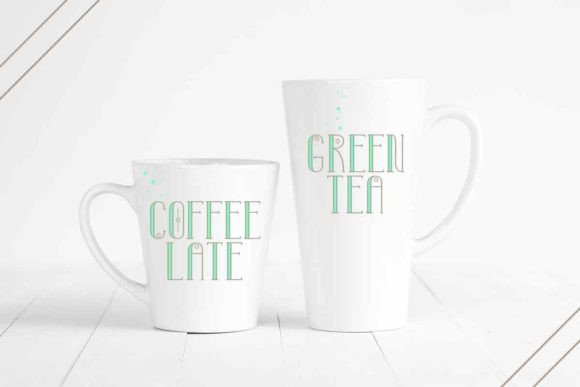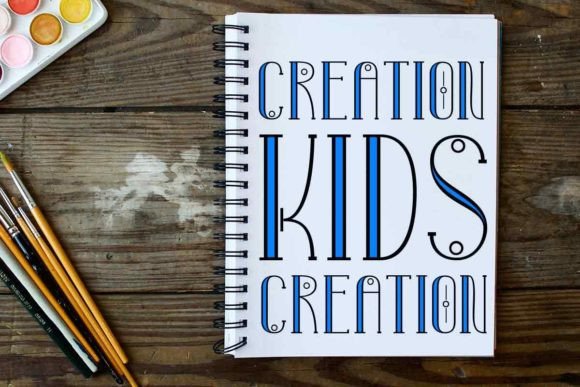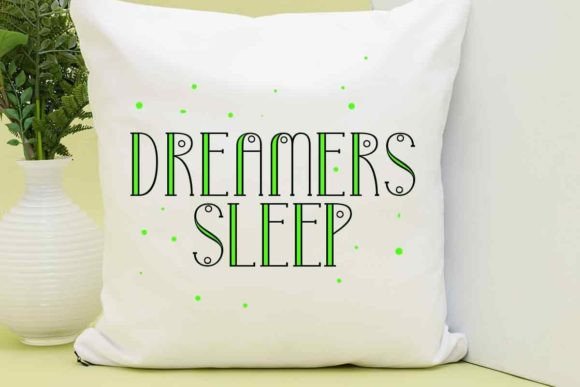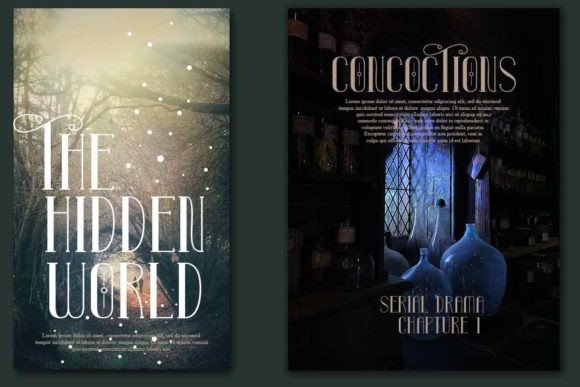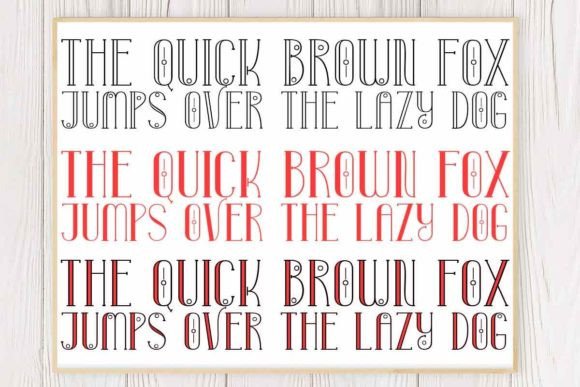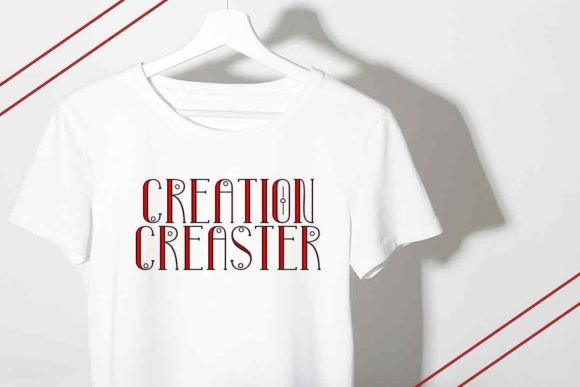
Introducing Creaster Silly Font: The Ultimate Display Font for Creative Projects
Are you tired of using the same old fonts for your creative projects? Look no further! Creaster Silly Font is here to add a touch of quirkiness and playfulness to your designs. This display-themed serif font is perfect for designers and crafters who want to make their work stand out from the crowd.
What Makes Creaster Silly Font So Special?
Creaster Silly Font is a modern serif font with a twist. Its quirky and playful shapes are designed to add a touch of whimsy to your designs. The font comes with added decorations, making it even more interesting and unique. Whether you’re working on a greeting card, invitation, or clothing print, Creaster Silly Font is the perfect choice.
Key Features of Creaster Silly Font
- Display-themed serif font: Creaster Silly Font is designed to make a statement. Its serif style gives it a classic touch, while its quirky shapes keep it modern and fresh.
- Quirky and playful shapes: The font’s unique shapes are designed to add a touch of playfulness to your designs. Perfect for projects that require a bit of whimsy.
- Modern style: Creaster Silly Font is designed with modern design trends in mind. Its clean lines and simple shapes make it perfect for contemporary projects.
- Added decorations: The font comes with added decorations, making it even more interesting and unique. Use them to add an extra touch to your designs.
Use Creaster Silly Font for a Variety of Projects
Creaster Silly Font is versatile and can be used for a wide range of projects. Here are some ideas to get you started:
- Greeting cards: Add a touch of whimsy to your greeting cards with Creaster Silly Font. Perfect for birthdays, weddings, and other celebrations.
- Invitations: Make your invitations stand out with Creaster Silly Font. Its playful shapes and modern style are sure to impress.
- Clothing prints: Use Creaster Silly Font to create unique and eye-catching clothing prints. Perfect for t-shirts, hoodies, and other apparel.
- Stationery: Add a touch of personality to your stationery with Creaster Silly Font. Use it for letterheads, notebooks, and other paper products.
Why You’ll Love Creaster Silly Font
So, why should you choose Creaster Silly Font for your next project? Here are just a few reasons:
- Unique and eye-catching: Creaster Silly Font is designed to stand out. Its quirky shapes and modern style make it perfect for designers who want to make a statement.
- Versatile: Creaster Silly Font can be used for a wide range of projects, from greeting cards to clothing prints.
- High-quality: The font is designed with high-quality in mind. Its clean lines and simple shapes make it perfect for professional projects.
In conclusion, Creaster Silly Font is the perfect choice for designers and crafters who want to add a touch of quirkiness and playfulness to their projects. Its unique shapes, modern style, and added decorations make it a standout font that’s sure to impress. Try Creaster Silly Font today and see the difference it can make in your designs!
- What is Creaster Silly Font?: Creaster Silly Font is a display-themed serif font with quirky and playful shapes in a modern style.
- What can I use Creaster Silly Font for?: You can use Creaster Silly Font for a wide range of projects, from greeting cards and invitations to clothing prints and stationery.